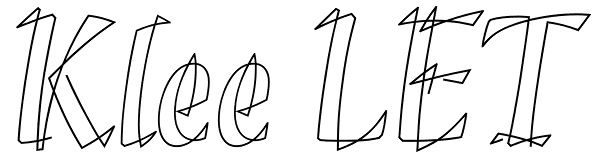
Klee
Inventive British designer Tim Donaldson was inspired by the work of the famous modern artist, Paul Klee, when he created this unique, roman type style. Klee projects a delicate, feminine appearance with its fine line structure. The capitals can be...